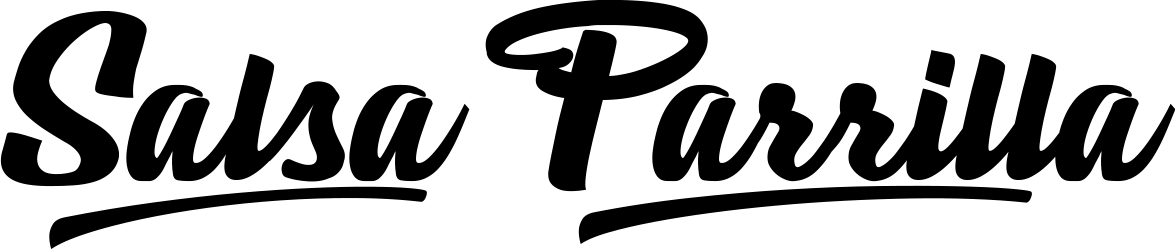
Salsa Parrilla Font
Salsa Parrilla font allows you to present your various handwritten and friendly designs as best you can. The combination of uppercase and lowercase letters makes your invitation cards very stylish and unique.